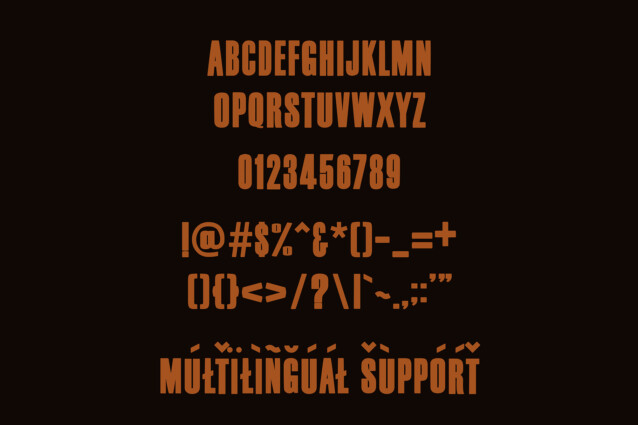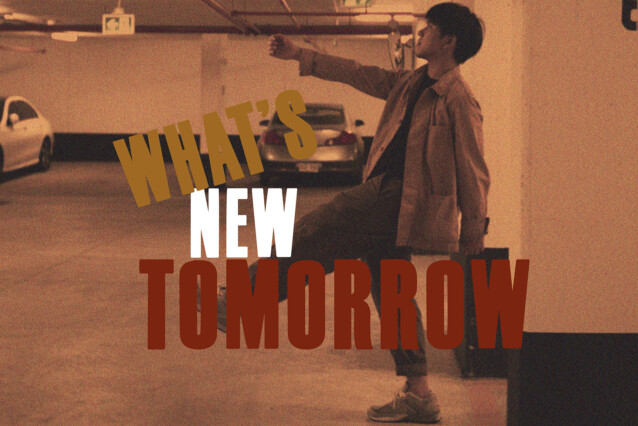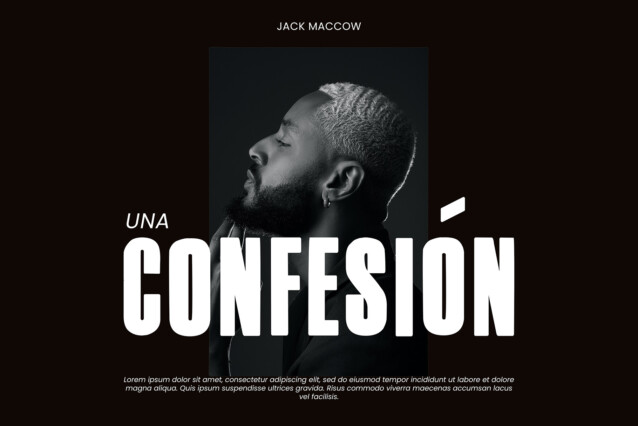
Cinespectra Font
Cinespectra Font is a simple and sans serif font. So perfect for you who needs a typeface for logo designs, magazine, social media, brochure, and many more.